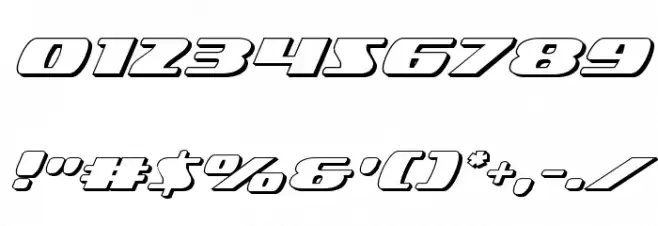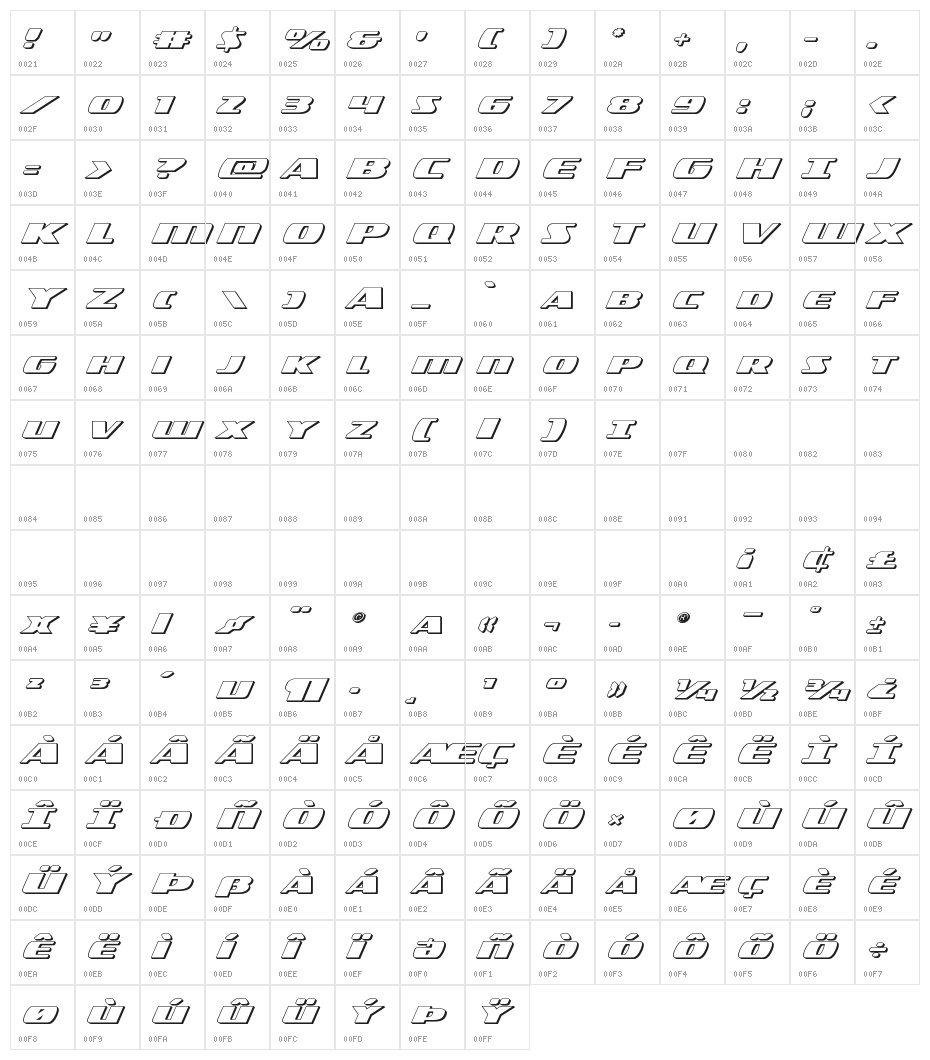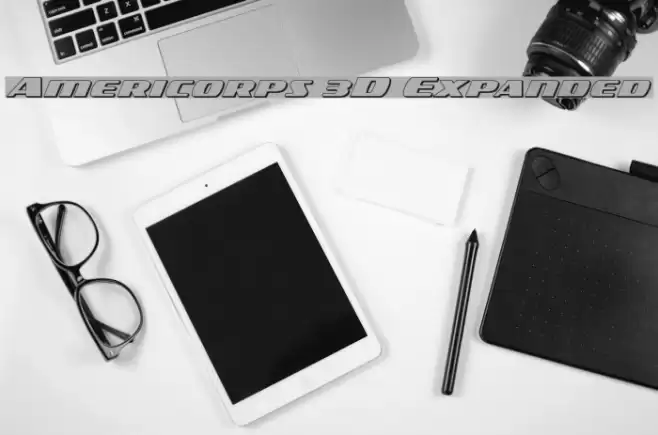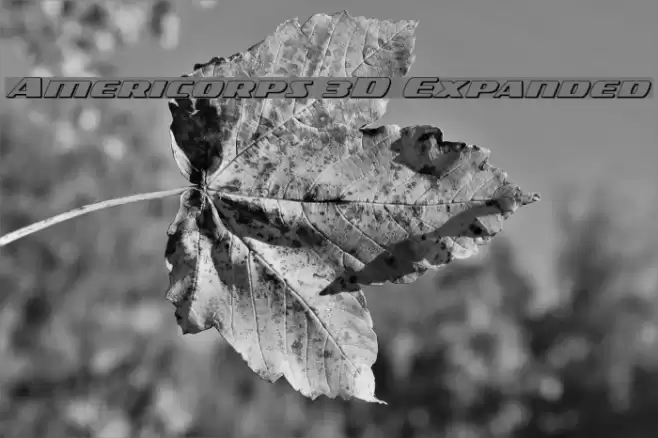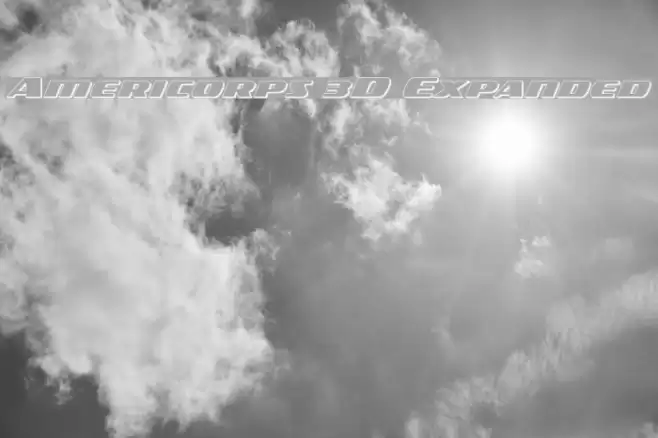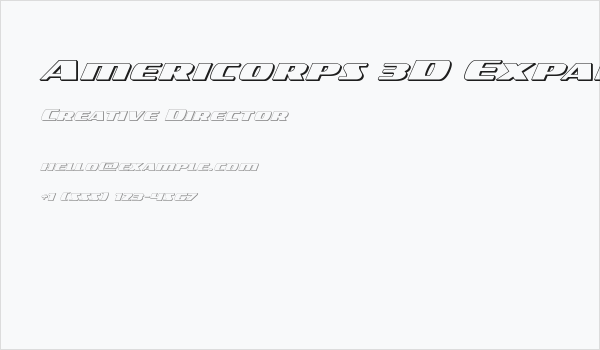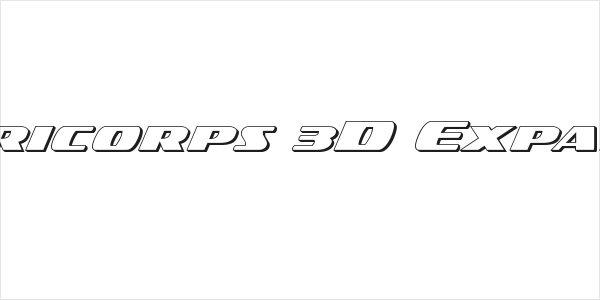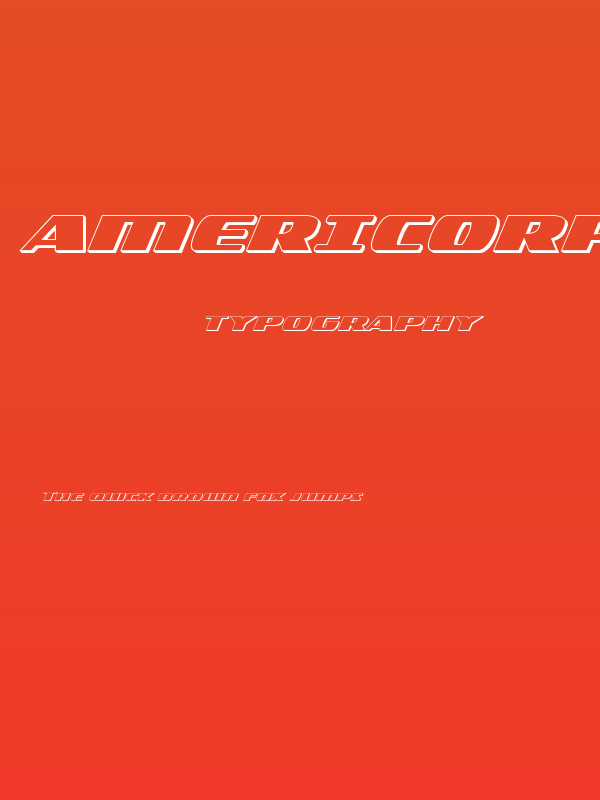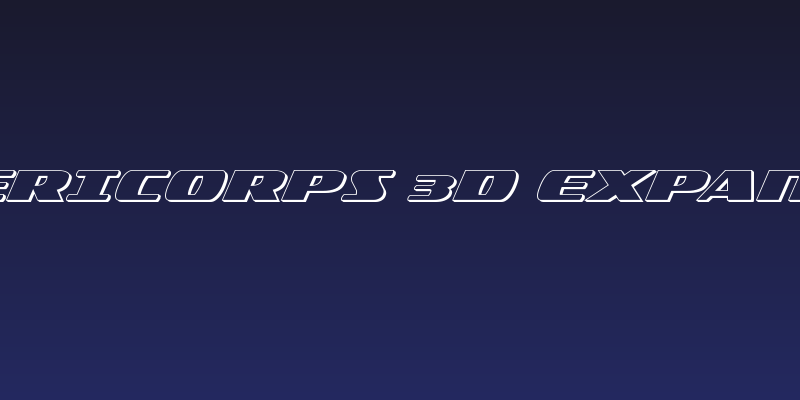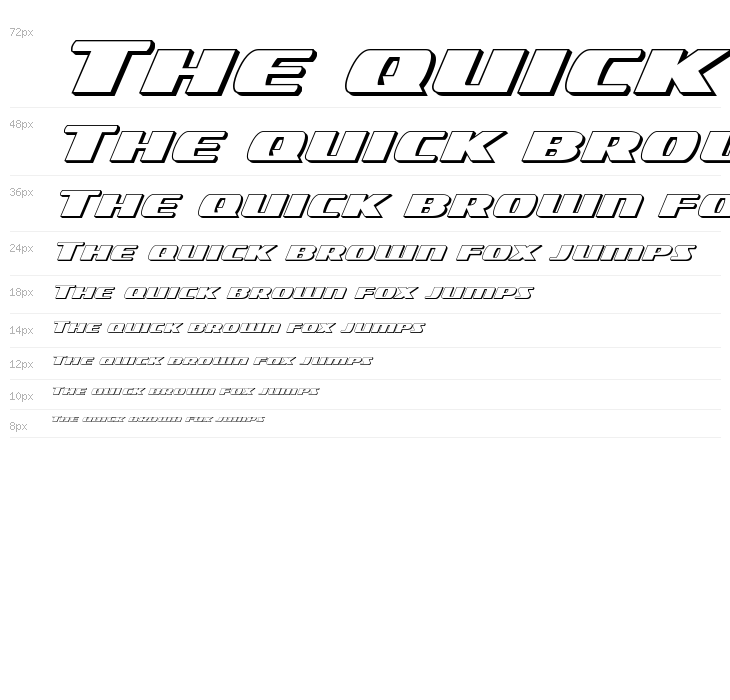
Americorps 3D Expanded Font
Americorps 3D Expanded Description
This font features a bold, three-dimensional style with an expanded width, giving it a strong and impactful presence. The characters are outlined, creating a shadow effect that enhances the 3D appearance. The design is geometric and angular, with sharp edges and clean lines, making it suitable for modern and futuristic themes. The uppercase letters are uniform in height, while the numerals and special characters maintain the same stylistic approach, ensuring consistency across all glyphs. This font is ideal for projects that require a bold statement or a dynamic visual impact.
| Proposed Projects | Ideal for logos, headlines, posters, and any project needing a bold, futuristic look. |